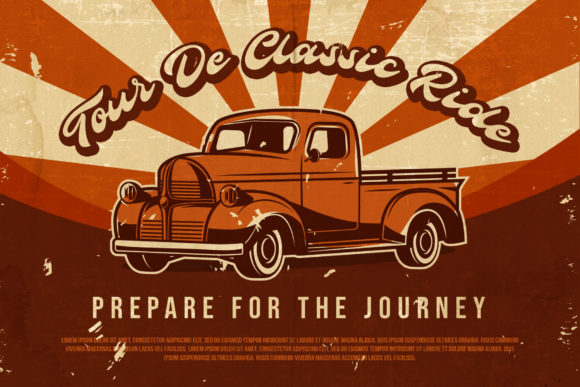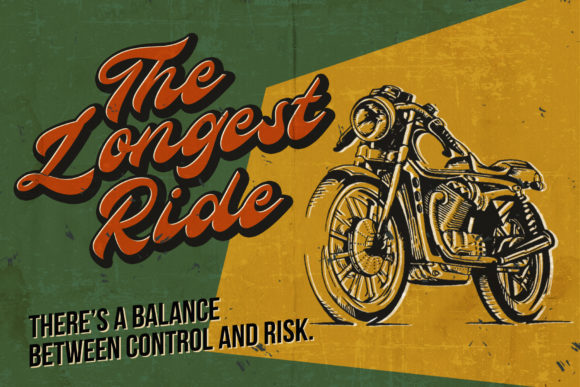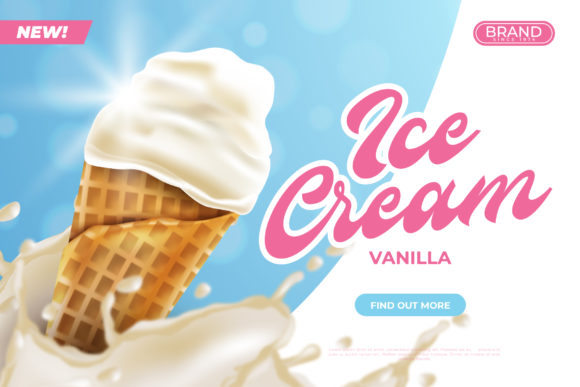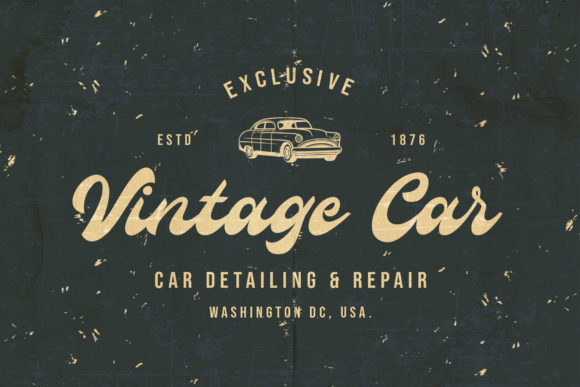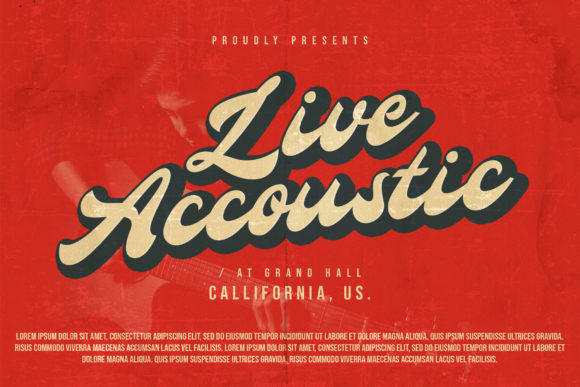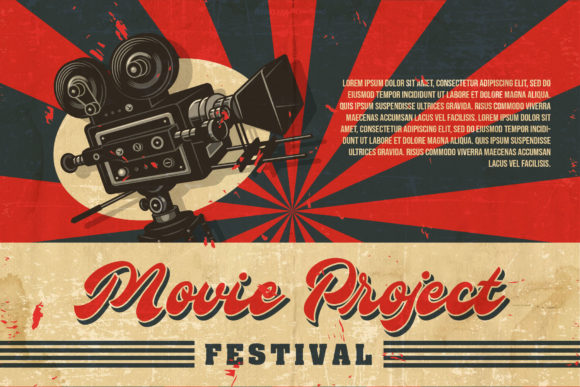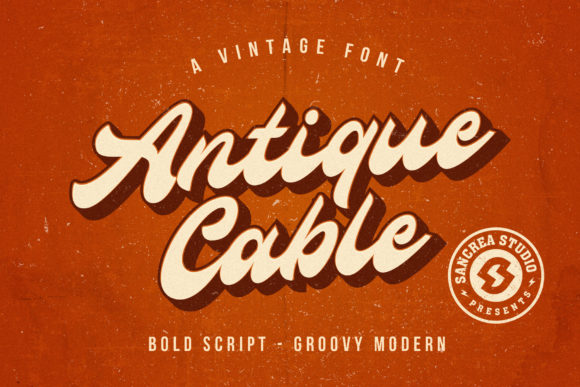
Discover the Charm of Antique Cable Font: Elevate Your Designs with a Touch of Vintage Elegance
Are you a designer or crafter looking for a unique and timeless font to add a touch of vintage charm to your creations? Look no further than the Antique Cable Font. This beautiful, flowing handwritten font is sure to capture your heart with its distinct and classic style. In this article, we’ll dive into the world of Antique Cable Font, exploring its features, benefits, and uses, as well as provide tips on how to incorporate it into your designs.
What is Antique Cable Font?
Antique Cable Font is a carefully crafted, handwritten font that exudes a sense of nostalgia and sophistication. Its flowing lines and intricate details evoke a bygone era, making it perfect for designs that require a touch of vintage elegance. Whether you’re working on a logo, branding materials, or craft projects, Antique Cable Font is sure to add a level of refinement and character to your work.
Key Features of Antique Cable Font
- Unique and Timeless Style: Antique Cable Font boasts an incredibly distinct and timeless style that sets it apart from other fonts.
- Flowing Handwritten Design: The font’s flowing lines and cursive connections create a sense of movement and fluidity.
- Vintage Aesthetic: Antique Cable Font delivers an incredible vintage aesthetic that’s perfect for designs that require a touch of nostalgia.
- Highly Versatile: The font is suitable for a wide range of design applications, from logos and branding materials to craft projects and digital media.
Benefits of Using Antique Cable Font
So, why choose Antique Cable Font for your designs? Here are just a few benefits of using this beautiful font:
- Adds Character to Your Designs: Antique Cable Font adds a level of character and personality to your designs, setting them apart from more generic fonts.
- Evokes Emotion: The font’s vintage aesthetic and flowing lines evoke a sense of nostalgia and warmth, making it perfect for designs that require an emotional connection.
- Enhances Brand Identity: Antique Cable Font can help establish a unique brand identity that’s both memorable and timeless.
Using Antique Cable Font in Your Designs
So, how can you incorporate Antique Cable Font into your designs? Here are a few ideas to get you started:
- Logos and Branding Materials: Use Antique Cable Font to create unique and memorable logos, business cards, and other branding materials.
- Craft Projects: Add a touch of vintage charm to your craft projects, such as handmade cards, scrapbooking, and DIY decor.
- Digital Media: Use Antique Cable Font in digital media, such as social media graphics, blog posts, and website headers.
Tips for Working with Antique Cable Font
Here are a few tips to keep in mind when working with Antique Cable Font:
- Pair with Simple Backgrounds: Let the font take center stage by pairing it with simple backgrounds that don’t compete for attention.
- Experiment with Colors: Try out different color combinations to find the perfect match for your design.
- Use it Sparingly: Use Antique Cable Font sparingly to add emphasis and create visual interest in your designs.
In conclusion, Antique Cable Font is a beautiful and versatile font that’s perfect for designers and crafters looking to add a touch of vintage elegance to their creations. With its unique and timeless style, flowing handwritten design, and highly versatile nature, this font is sure to become a favorite in your design arsenal. So why wait? Fall in love with Antique Cable Font and start creating spectacular designs today!